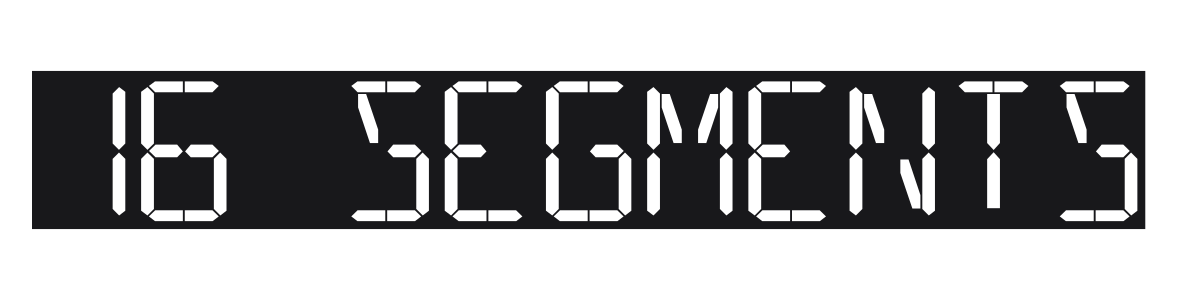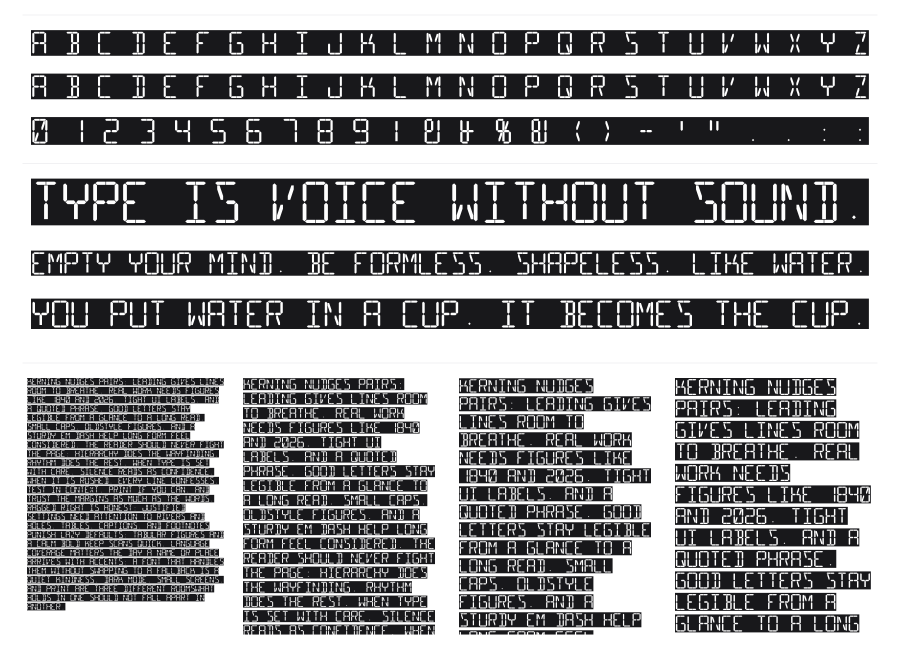
16 Segments
16 Segments is a typeface built to mimic the look of a sixteen-segment electronic display, the kind found on old airport departure boards and calculator screens. Every character is constructed from short uniform line segments with visible gaps between them, giving it that unmistakable fragmented digital grid quality. It reads instantly as electronic and mechanical, making it useful wherever a retro-digital or tech aesthetic is needed.